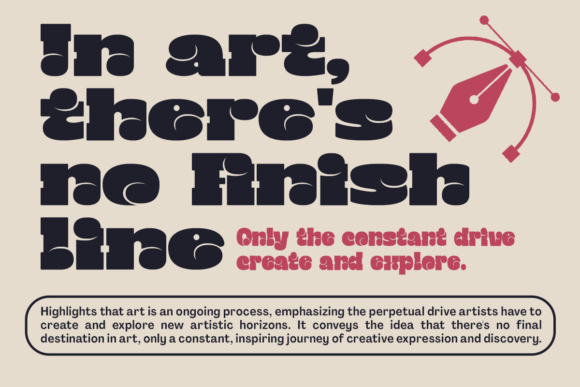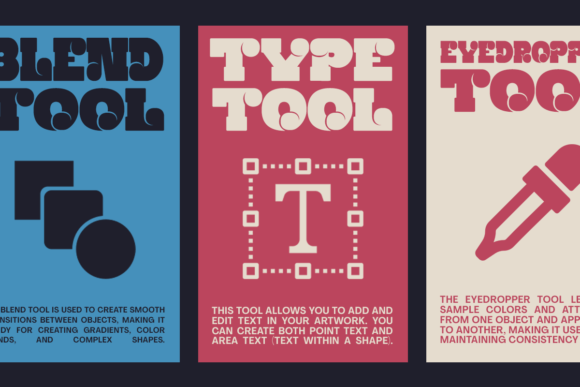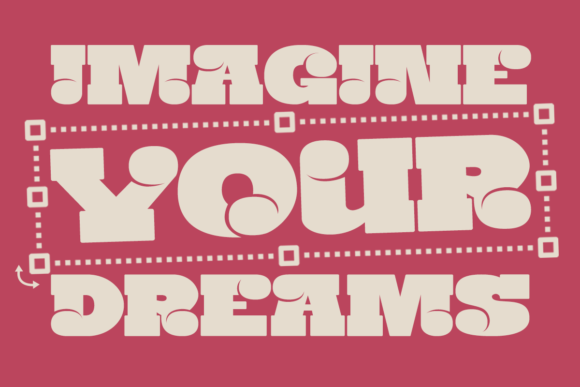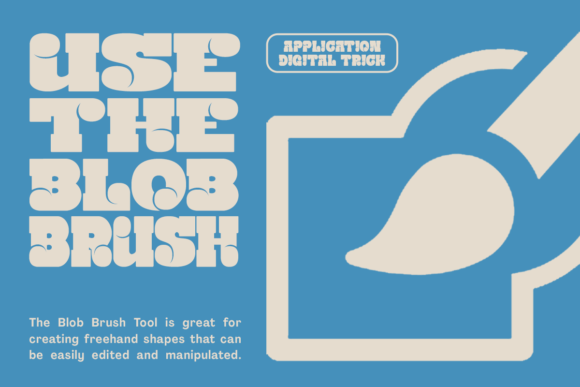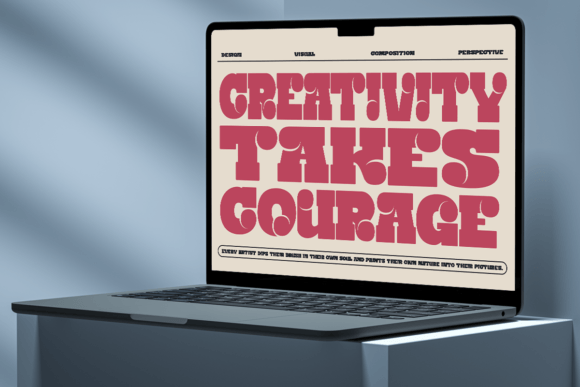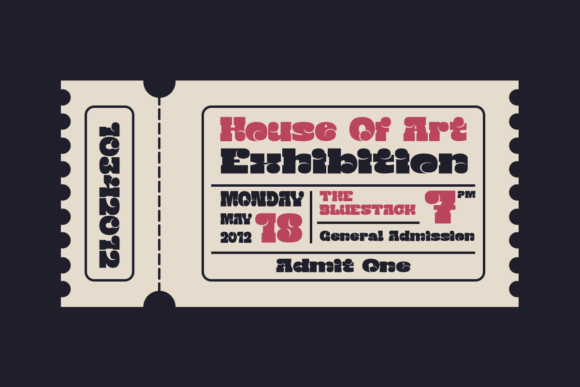
Introducing Acting: The Perfect Font for Your Creative Projects
Have you ever been in the middle of a design project, and suddenly, you’re stuck on finding the perfect font? I recall a recent experience where I was working on a branding project for a trendy coffee shop. My client wanted a font that was both nostalgic and bold, but I just couldn’t seem to find the right fit. That was until I discovered Acting, a robust slab typeface that effortlessly combines nostalgia with contemporary boldness.
The Unique Charm of Acting
So, what sets Acting apart from other fonts? The distinctive circular elements within each letter add a unique touch while maintaining clean and balanced shapes. This font is not just a pretty face; it’s also incredibly versatile. With alternative glyphs, Acting truly comes to life. You can choose from three widths: Condensed, Normal, and Expanded, along with an oblique version, resulting in a total of six styles.
My Honest Review of Acting
• ✨ Unique circular elements within each letter
• ✅ Versatile with three widths and an oblique version
• ✅ Clean and balanced shapes
• ✅ Alternative glyphs for added creativity
While Acting is an excellent font, there are a few things to keep in mind. ⚠️ Some of the circular elements can be a bit tricky to read at smaller font sizes. Additionally, 🤔 the oblique version can be a bit too slanted for certain design applications.
The Backstory of Acting
Acting was designed with the goal of creating a font that was both nostalgic and modern. The designer wanted to create a font that would evoke a sense of classic Hollywood glamour while still feeling fresh and contemporary. The result is a font that’s perfect for branding, titles, and headlines.
Q: What is the best way to use Acting in a design project?
A: Acting is perfect for branding, titles, and headlines. Experiment with different widths and oblique versions to find the perfect fit for your design.
Q: Can I use Acting for body text?
A: While Acting is a beautiful font, it’s best suited for headlines and titles. For body text, consider using a font with better readability.